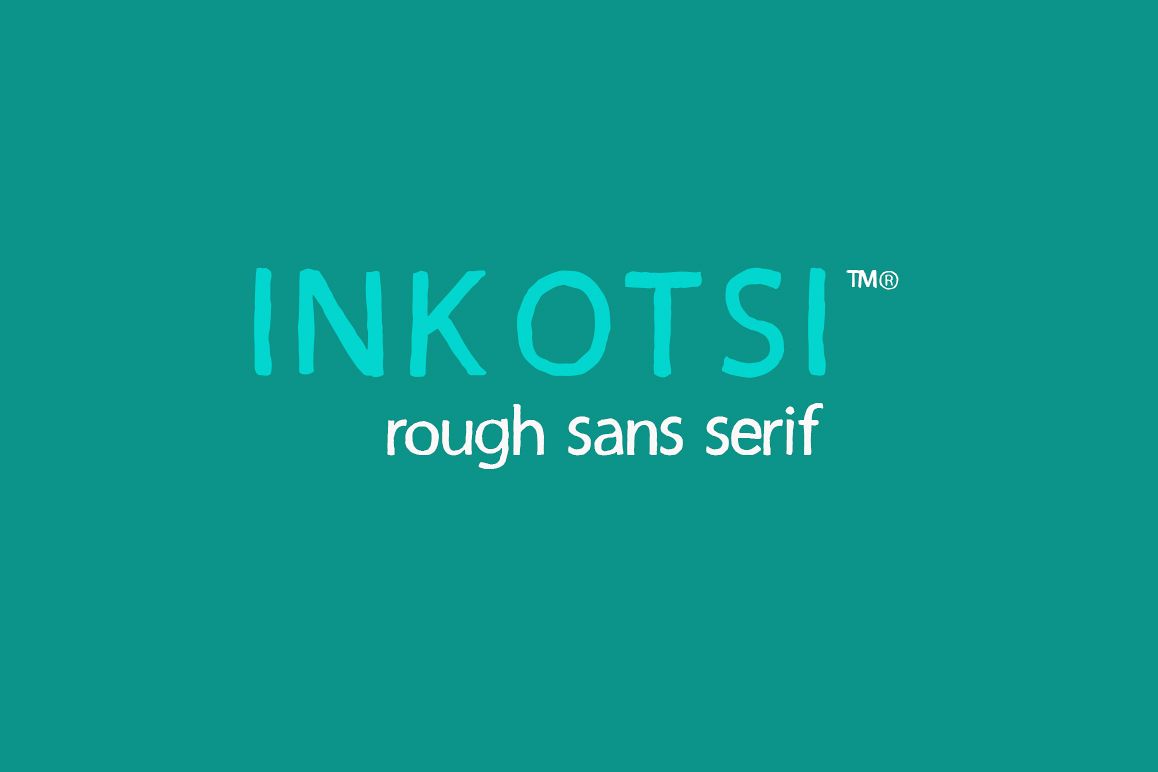
Inkotsi - Rough Sans Serif
inkotsi.
Inkotsi - Rough Sans Serif
Carefully designed with imperfect style by Incools Design Studio. We wanted to create something different, something that possibly display your art work in unique style.
Inkotsi - Rough Sans Serif